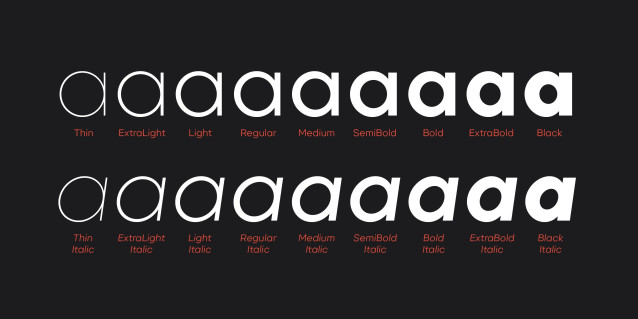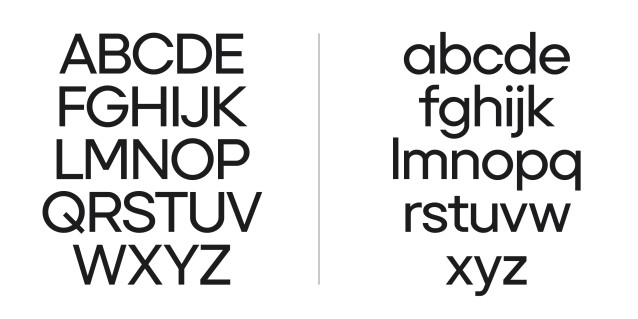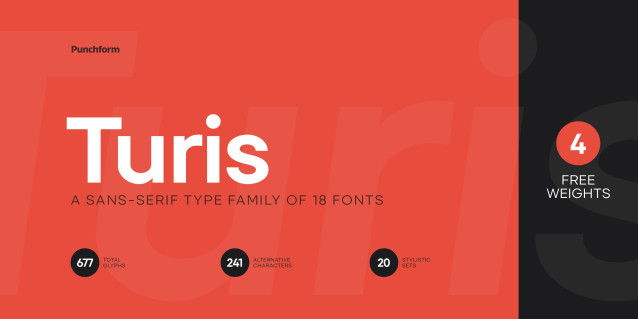
Turis Font Family
Turis Font Family is meticulously designed to adapt its personality to any project. With 241 alternative characters and 20 stylistic sets, you get unlimited power to take your creativity to the next level.
Turis is the smartest choice for any creative project. With a single click, you can change its typographic personality and adapt it to your desired style. Choose between 3 predefined styles or create your own style by combining the hundreds of alternate characters available.